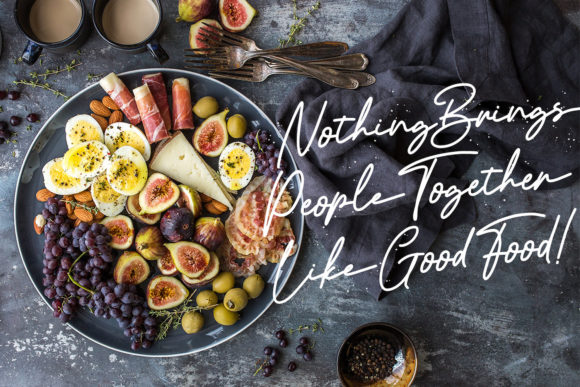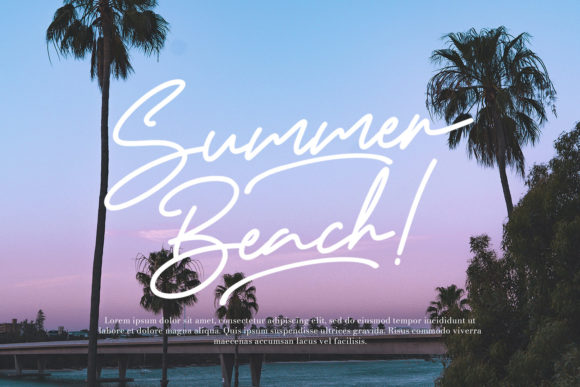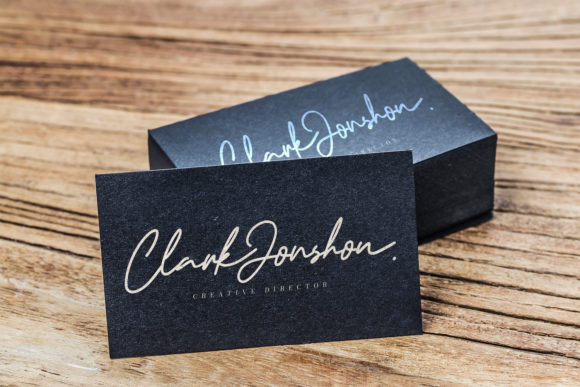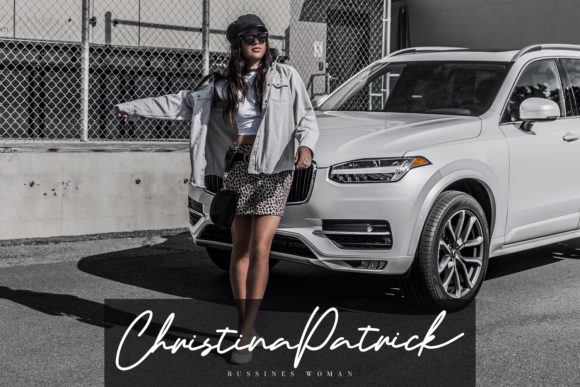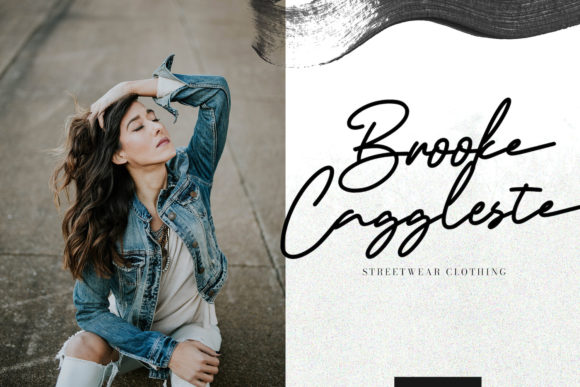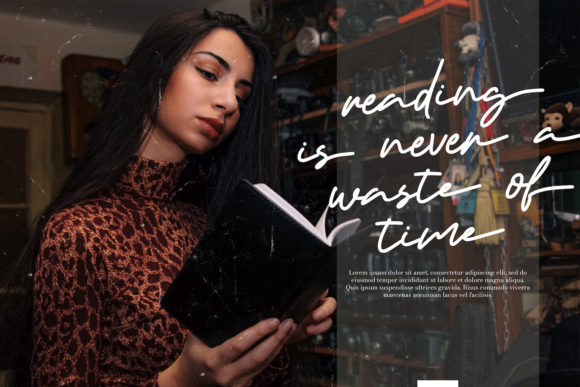
Discover the Elegance of Artemay Bright Font: A Delicate Handwritten Masterpiece
Are you a designer or crafter looking for a unique and beautiful font to elevate your creative projects? Look no further than the Artemay Bright Font, a delicate and exquisitely designed handwritten font that is sure to capture your heart. With its elegant and well-rounded letters, this font is a masterpiece that will add a touch of sophistication to any design.
The Distinct Style of Artemay Bright Font
Artemay Bright Font boasts a distinct style that sets it apart from other fonts. Its delicate and cursive letters are carefully crafted to create a sense of fluidity and movement, making it perfect for designs that require a touch of elegance and refinement. Whether you’re creating a logo, a poster, or a digital graphic, this font is sure to make your design stand out.
Why Fall in Love with Artemay Bright Font?
- Elegant and Refined: The font’s delicate and cursive letters exude elegance and refinement, making it perfect for designs that require a touch of sophistication.
- Unique and Distinctive: Artemay Bright Font has a unique and distinctive style that sets it apart from other fonts, ensuring that your designs will stand out from the crowd.
- Versatile: This font is versatile and can be used for a wide range of design projects, from logos and posters to digital graphics and more.
- Easy to Read: Despite its delicate nature, Artemay Bright Font is easy to read, making it perfect for designs that require a clear and concise message.
How to Use Artemay Bright Font in Your Designs
- Pair it with Other Fonts: Artemay Bright Font pairs well with other fonts, making it easy to create a unique and visually appealing design.
- Experiment with Colors: The font’s delicate nature makes it perfect for designs that require a subtle and understated color scheme.
- Use it for Headings and Titles: Artemay Bright Font is perfect for headings and titles, adding a touch of elegance and sophistication to your design.
In conclusion, Artemay Bright Font is a delicate and beautifully designed handwritten font that is sure to capture the hearts of designers and crafters. With its elegant and well-rounded letters, this font is a masterpiece that will add a touch of sophistication to any design. Whether you’re creating a logo, a poster, or a digital graphic, Artemay Bright Font is the perfect choice. So why wait? Fall in love with this distinct style and use it to create spectacular designs!